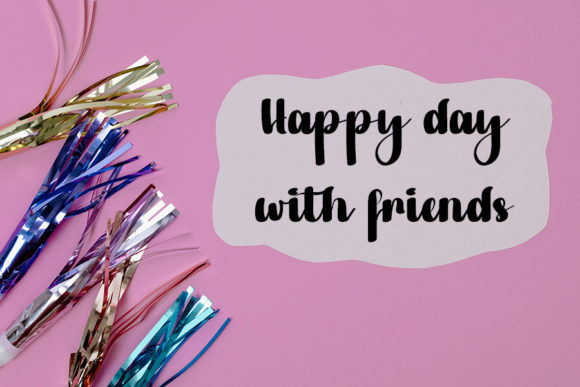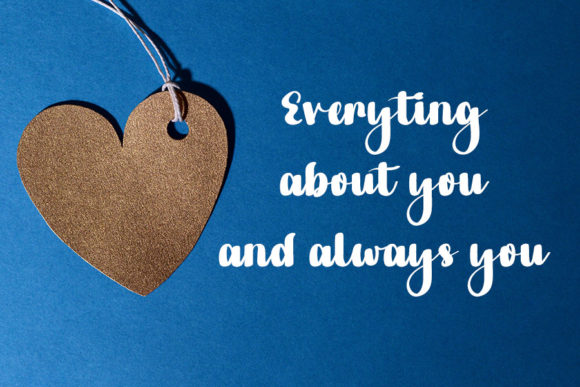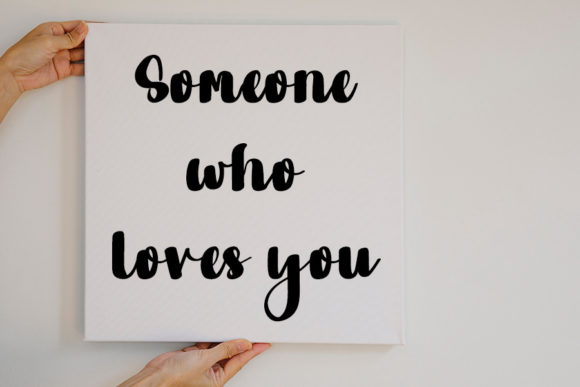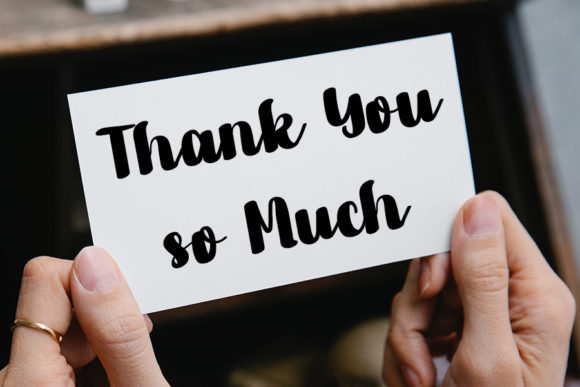
Introducing Heartbeats Font: Elevate Your Designs with Timeless Elegance
Are you on the hunt for a font that exudes sophistication, style, and a touch of classic charm? Look no further than Heartbeats Font, a stunning handwritten typeface that brings a contemporary twist to traditional calligraphy. In this article, we’ll dive into the world of Heartbeats, exploring its unique features, design inspiration, and the endless possibilities it offers for designers and crafters alike.
The Inspiration Behind Heartbeats Font
Heartbeats Font draws inspiration from the timeless classics of calligraphy, reimagining the elegance of the past with a modern spin. The result is a stylish and sophisticated typeface that boasts impeccable form and a balanced, varied aesthetic. This beautiful font is perfect for designers seeking to add a touch of refinement and luxury to their projects.
Key Features of Heartbeats Font
- Handwritten with a contemporary twist: Heartbeats Font boasts a unique, handwritten feel with a modern edge, setting it apart from more traditional typefaces.
- Balanced and varied: The font’s carefully crafted design ensures a perfect balance of elegance and playfulness, making it suitable for a wide range of applications.
- Impeccable form: With its precise lines and curves, Heartbeats Font exudes a sense of sophistication and refinement, perfect for high-end designs.
Design Possibilities with Heartbeats Font
Heartbeats Font is an incredibly versatile typeface, suitable for a diverse range of design projects. Here are just a few ideas to get you started:
- Logo design: Create a lasting impression with a custom logo that showcases the elegance and sophistication of Heartbeats Font.
- Wedding and event planning: Add a touch of romance and luxury to your wedding invitations, programs, and other event materials with this beautiful font.
- Branding and packaging: Elevate your brand’s visual identity with Heartbeats Font, perfect for high-end product packaging and marketing materials.
- Stationery and paper crafts: Add a personal touch to your stationery, journals, and paper crafts with the unique, handwritten charm of Heartbeats Font.
Why Choose Heartbeats Font?
- Unique and distinctive: Heartbeats Font offers a fresh, original take on traditional calligraphy, ensuring your designs stand out from the competition.
- High-quality design: With its impeccable form and balanced aesthetic, Heartbeats Font is a testament to exceptional design and attention to detail.